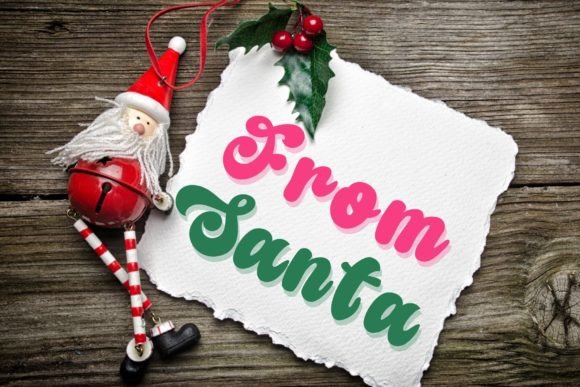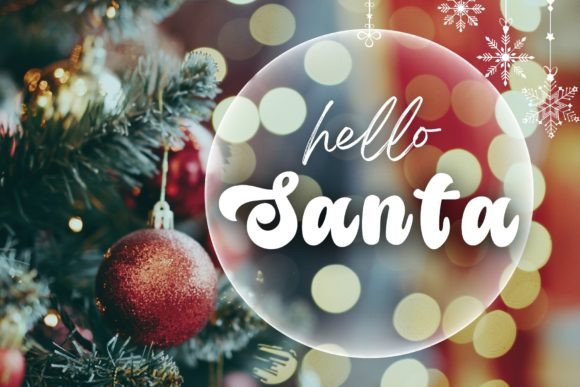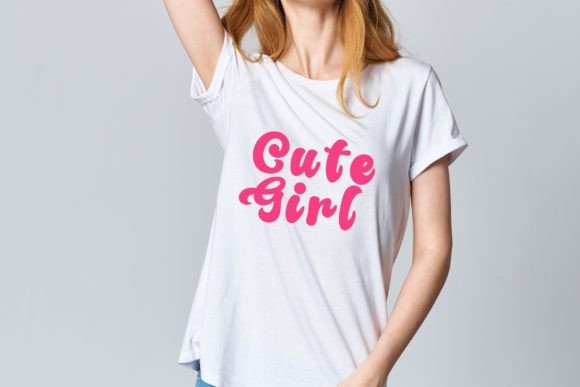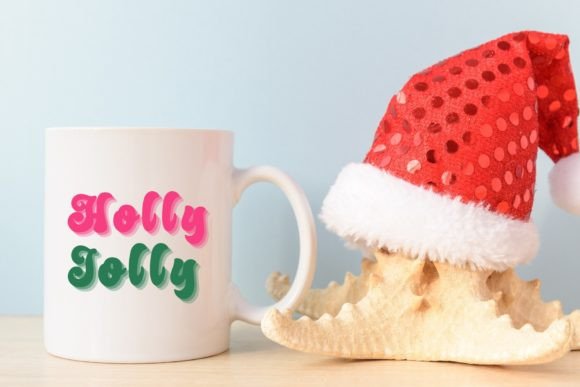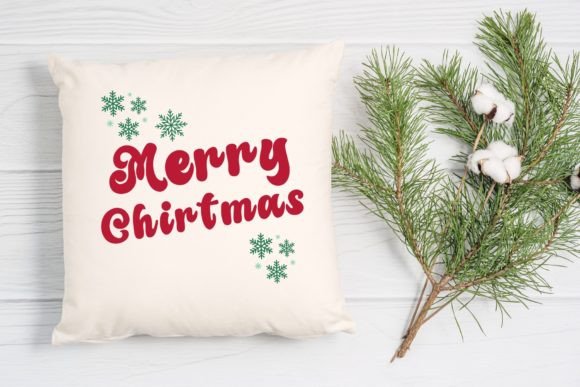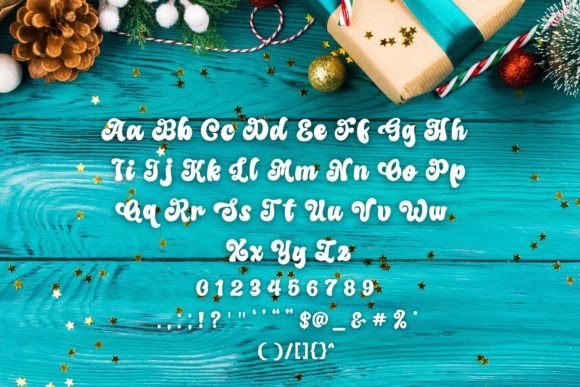
The Magic of Christmas Retro Font: A Festive Typeface for Holiday Projects
Ah, the holiday season is upon us, and as designers, crafters, and creative hobbyists, we’re gearing up to create some amazing projects. I still remember the year I was tasked with designing a Christmas card for my client’s family reunion. I spent hours scrolling through font libraries, searching for the perfect typeface to capture the warmth and joy of the season. That’s when I stumbled upon Christmas Retro Font – a game-changer for any holiday project!
An Honest Review of Christmas Retro Font
So, what makes Christmas Retro Font so special? Let’s dive into the good stuff and a few quirks to keep in mind.
- ✨ Festive and fun: This font is designed to spread joy and warmth during the holiday season.
- ✅ Highly versatile: Perfect for greeting cards, banners, posters, t-shirts, social media graphics, and marketing materials.
- 🎉 Easy to read: Despite its playful design, Christmas Retro Font remains clear and legible, even at smaller sizes.
- 🤔 Limited multilingual support: While Christmas Retro Font covers the basics, it may not support more exotic languages.
- ⚠️ Not suitable for body text: This font is best used for headlines, titles, or short paragraphs – it may not be the best choice for longer texts.
The Story Behind Christmas Retro Font
Legend has it that Christmas Retro Font was created by a talented type designer who wanted to capture the essence of holiday cheer. Inspired by vintage Christmas cards and decorations, this font was crafted to bring joy and warmth to any project. Whether or not that’s true, one thing is certain – Christmas Retro Font has become a beloved favorite among designers and crafters.
| Is Christmas Retro Font suitable for body text? | While Christmas Retro Font is easy to read, it’s best used for headlines, titles, or short paragraphs – not for longer texts. |